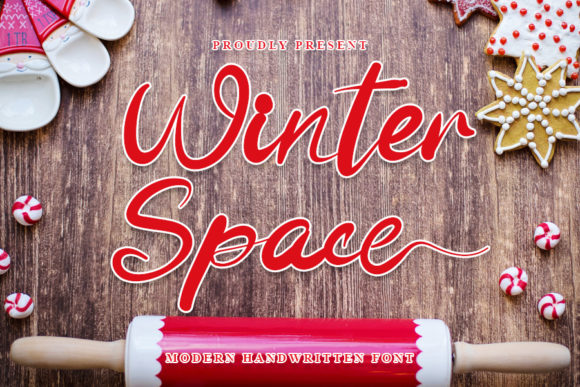
Immerse yourself in the ethereal beauty of Winter Space Script — a font designed to transport you to a realm of enchantment and sophistication. Step into a world where words dance with elegance and grace, leaving an unforgettable impression on every reader.
Crafted with meticulous attention to detail, Winter Space captures the essence of handwritten artistry with its fluid strokes and delicate curves. Inspired by the serene landscapes of winter, this font embodies a sense of calmness and tranquility, inviting you to lose yourself in its timeless charm.
Whether you're composing a heartfelt letter, creating eye-catching marketing materials, or simply adding a personal touch to your digital creations, Winter Space Script will elevate your words, making them shine with a unique and unforgettable radiance.
Fall in love with this delightful font and let your creativity blossom. Winter Space is perfect for adding a touch of whimsy and elegance to your projects. From stunning logos and branding materials to heartfelt invitations and greeting cards, this font will infuse your designs with warmth and charm.
With its enchanting allure and versatility, Winter Space Script is the perfect choice for those seeking to make a lasting impression. Download it today and experience the magic of words that flow effortlessly from your fingertips.